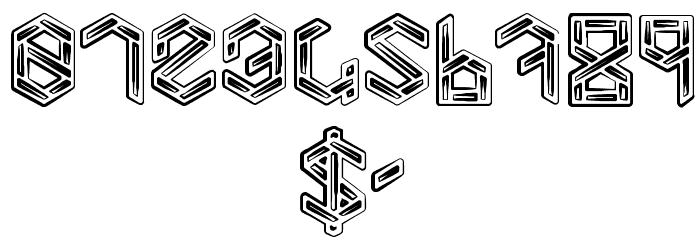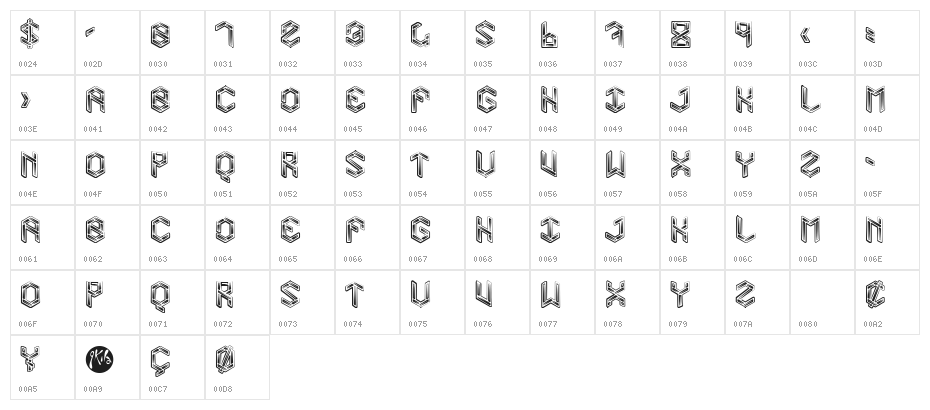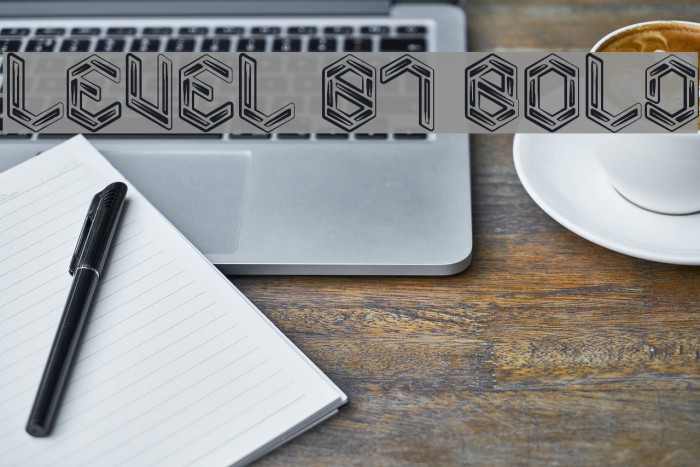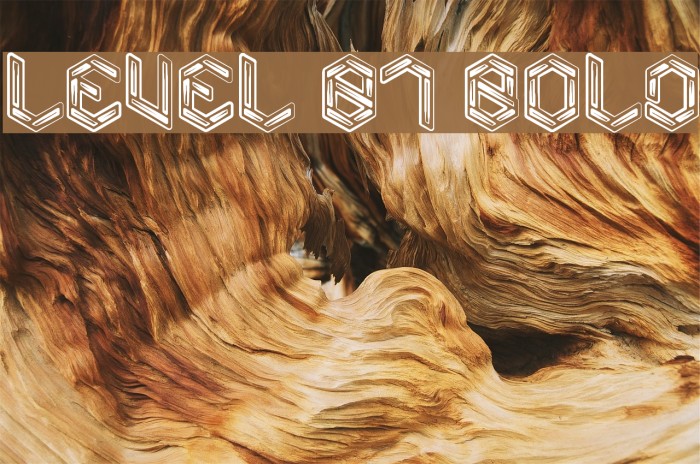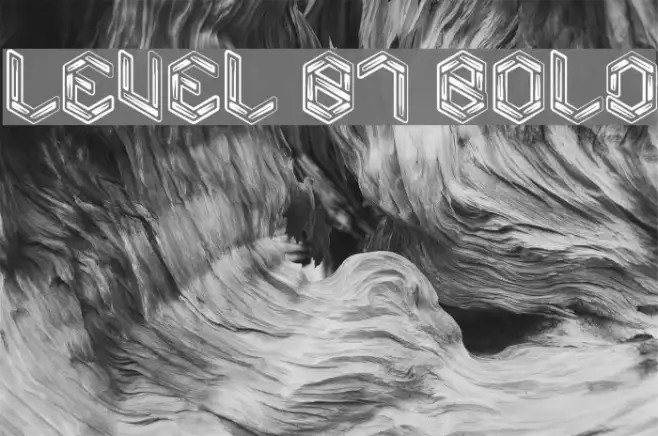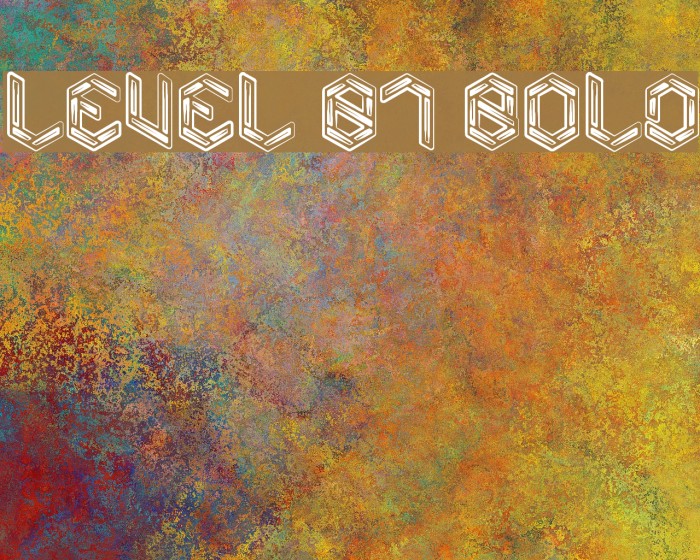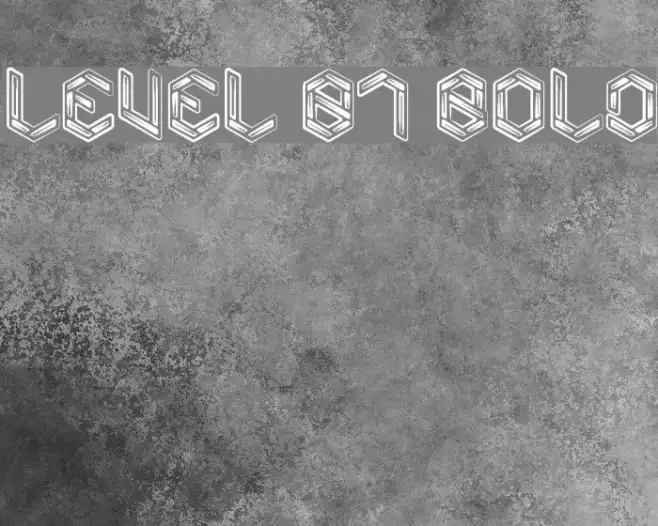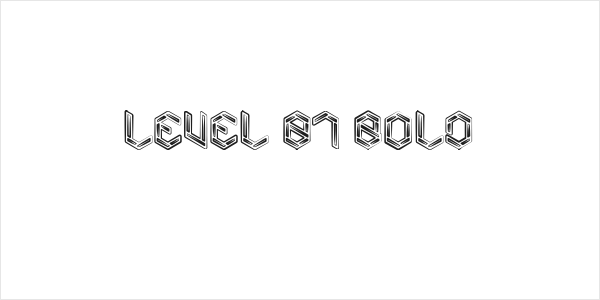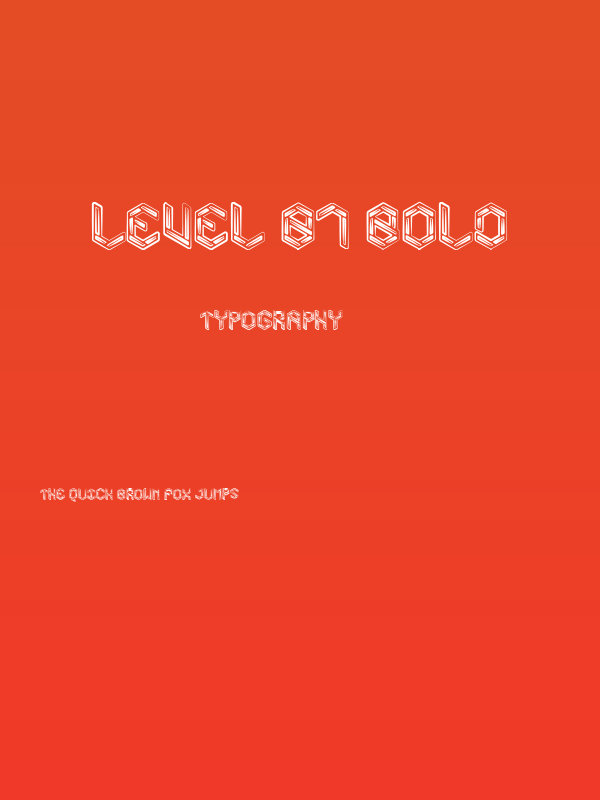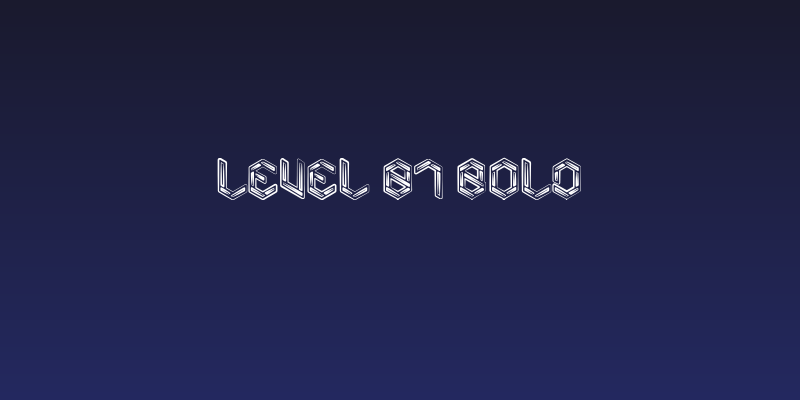
Level 01 Bold Font
Level 01 Bold Description
This font features a bold, three-dimensional design with a futuristic and geometric style. Each character is constructed with a series of interconnected lines that create a sense of depth and movement. The letters and numbers have a consistent angularity, giving them a cohesive and structured appearance. The font's unique style is accentuated by its hollow interior, which adds to the illusion of depth. This design is particularly eye-catching and would stand out in any visual context. The special characters maintain the same structural integrity, ensuring uniformity across all glyphs.
| Proposed Projects | Ideal for sci-fi themed projects, video game titles, tech branding, and modern posters. |